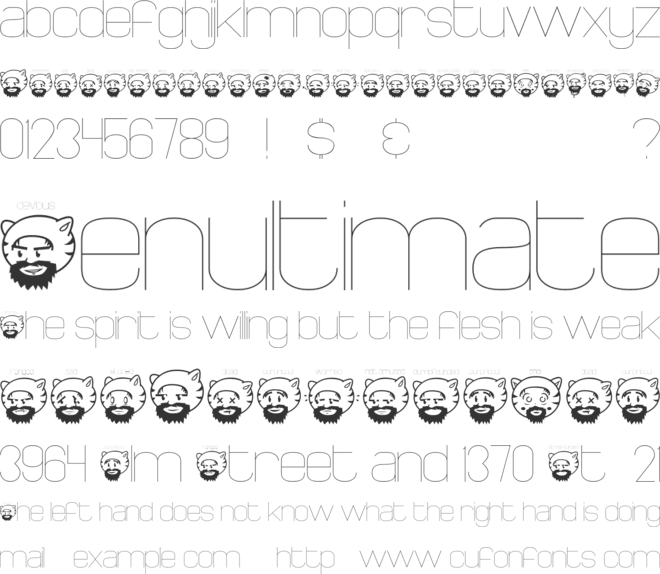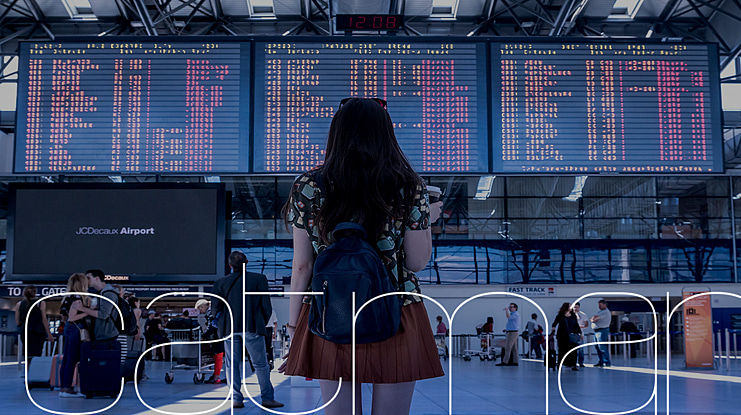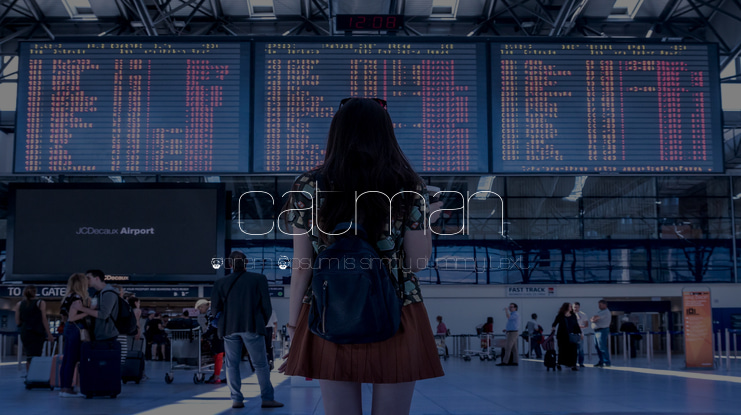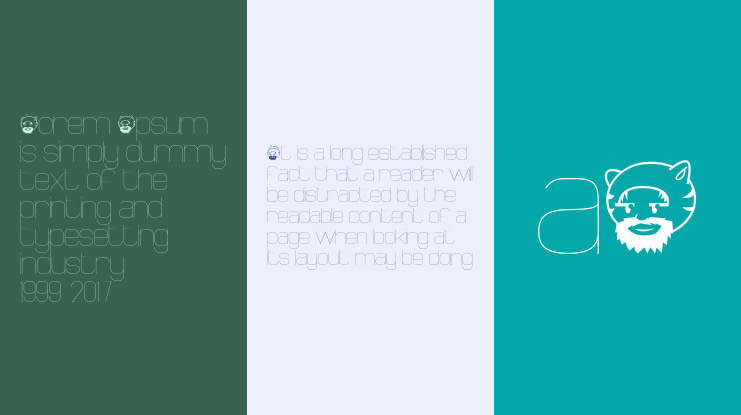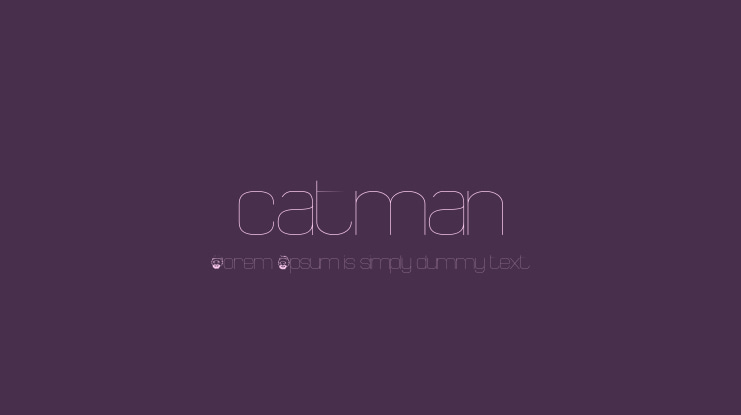
This font is named Catman after a character of our webcomic named Catman. The upper case of this font is pictures of Catman in various moods and situations. We are currently having a Catman Fan Art Contest. We would like you to submit your rendition of Catman. It could be a sketch, it can be done digitally, 3D, mosaic, with colored noodles, cosplay, anything you can think up as long as it is some form of Catman fan art.
This font was created for the webcomic Development, written by Rick Austinson and drawn by Michael Muranaka.
This font has an uppercase with Catman images, with a nice thing lowercase letter set and number set. The lower case letter set is great for titling, logo type, and much more!